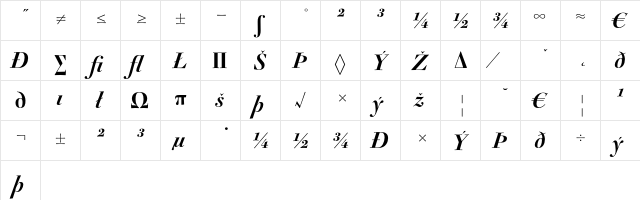
Acanthus BoldItalicExpert Font Preview
Acanthus BoldItalicExpert
Design Context for Acanthus Typeface
Acanthus offers clean, dependable letterforms without strong stylistic allegiance, making it a practical choice for designers who need flexibility. Its italic angle brings a sense of urgency and motion to the letterforms. The heavy weight commands attention and anchors typographic hierarchies.
Pro Tip: Use Acanthus for emphasis, pull quotes, and subheadings where its slanted energy can add rhythm to the layout.